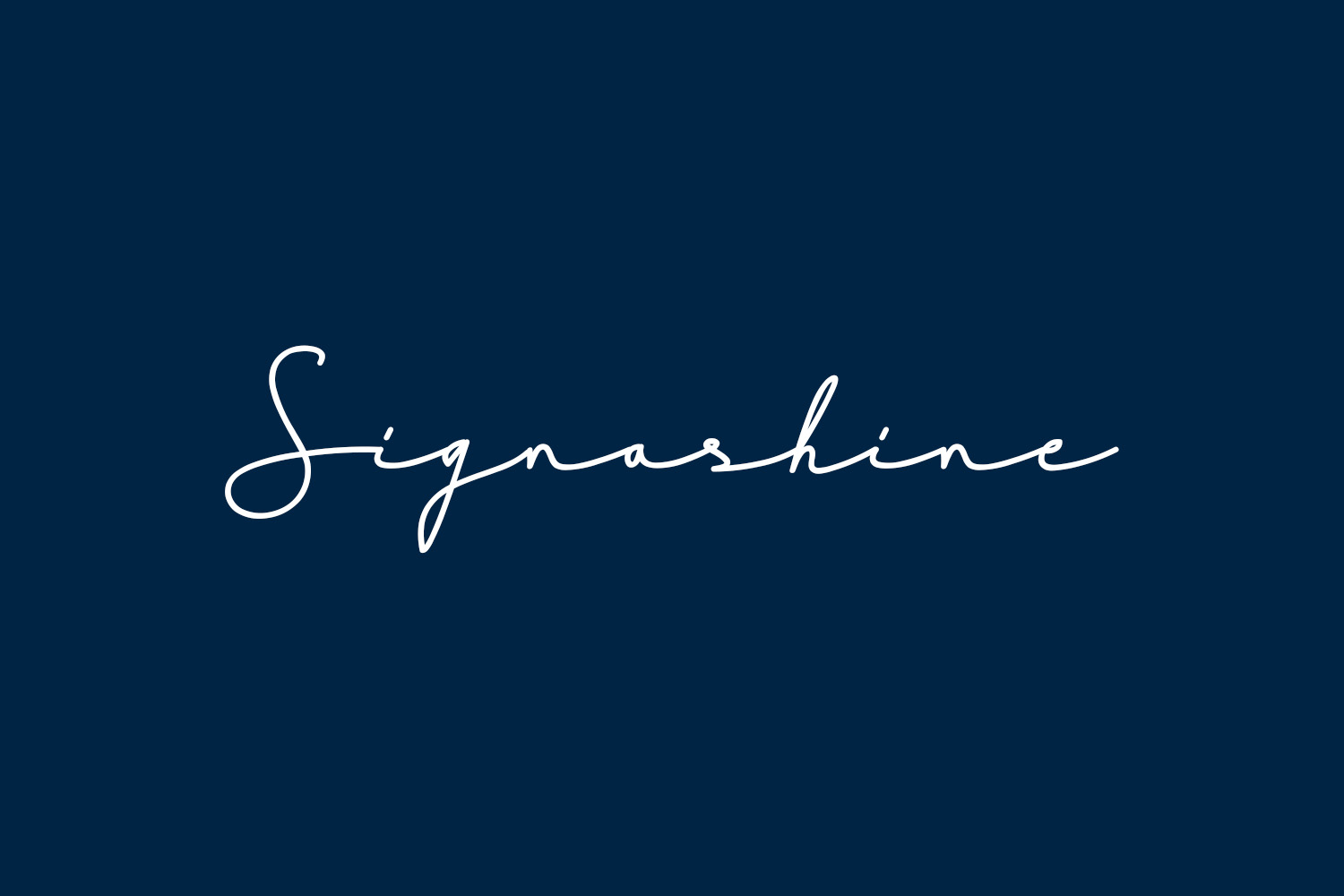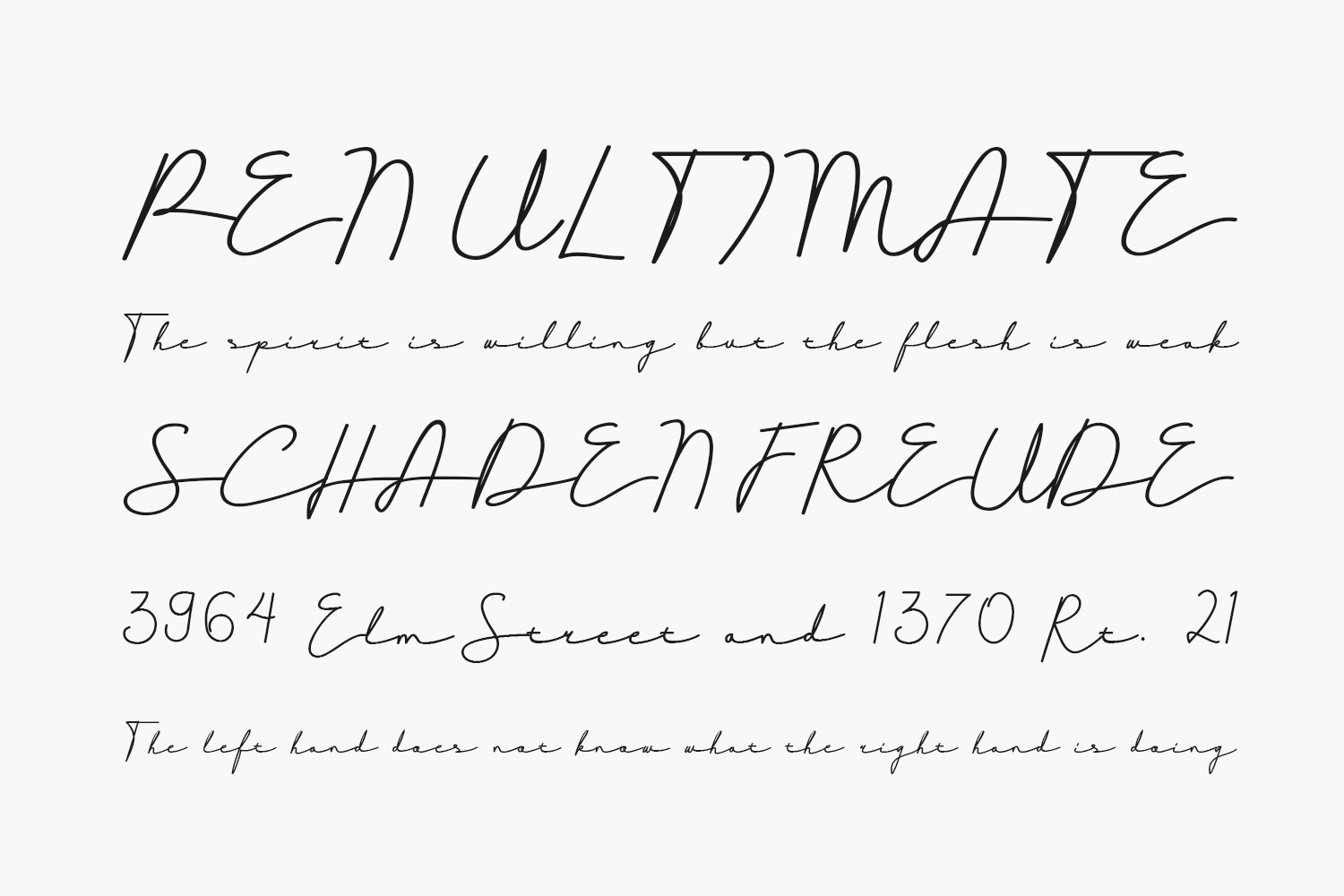
Signashine Free Font is an elegant and natural hand drawn font. It can be used for various purposes such as t-shirt designs, posters, labels, quotes, book covers, invitations, logos, and much more. Signashine Free Font was designed by Hardtype and is free for personal use only. Please purchase the full version for commercial use.